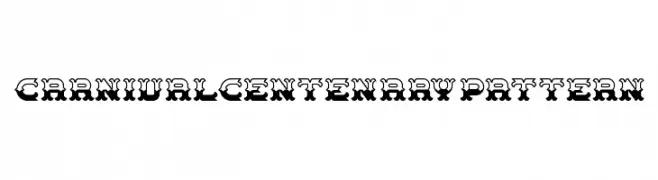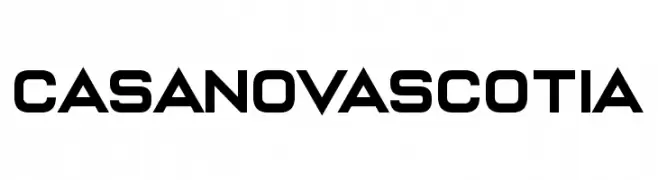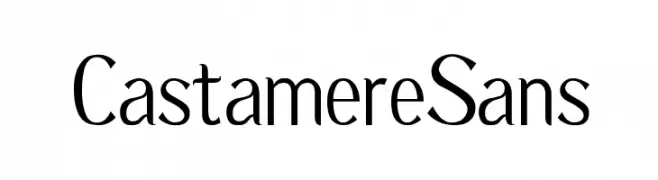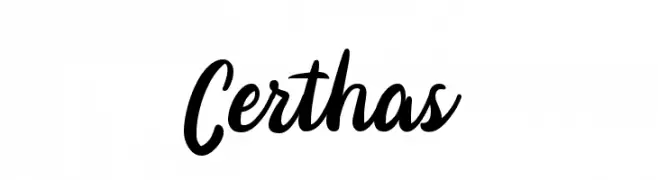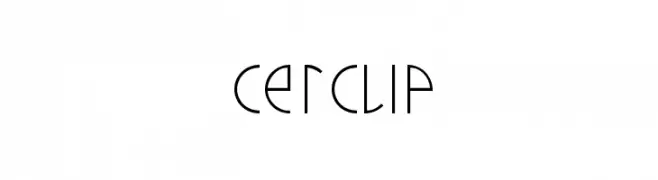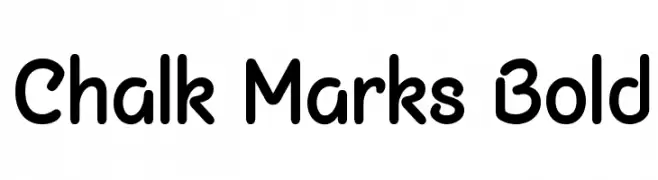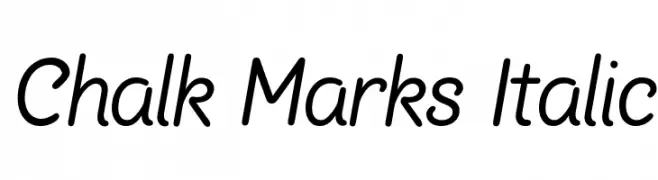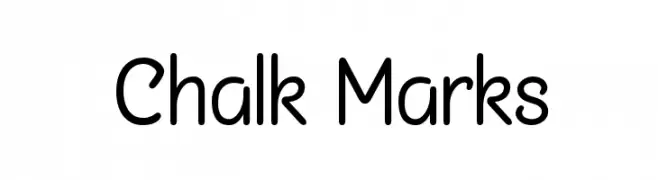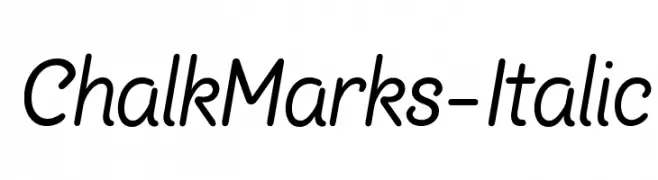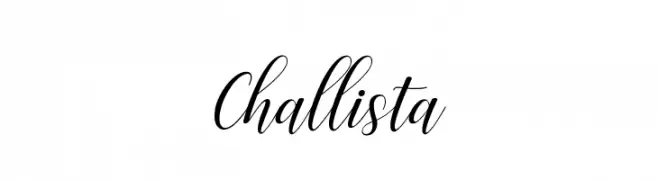
A bold, decorative font with intricate patterns and a festive, carnival-inspired style.
A bold, geometric, and modern font with a monospaced appearance.
A modern, elegant font with a clean and sophisticated design.
A modern, geometric font with circular lines and sharp angles.
A bold, cursive script font with fluid, connected strokes.
A playful, rounded font with a chalk-like appearance.
A bold, rounded font with a playful, chalk-like appearance.
A playful, italic font with smooth, rounded strokes and a chalk-like appearance.
A playful, handwritten font with smooth, slanted characters and rounded edges.
An elegant script font with fluid, cursive strokes and sophisticated design.